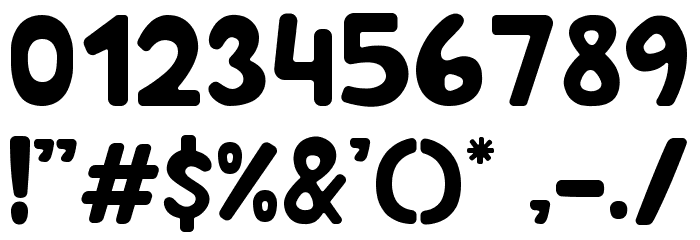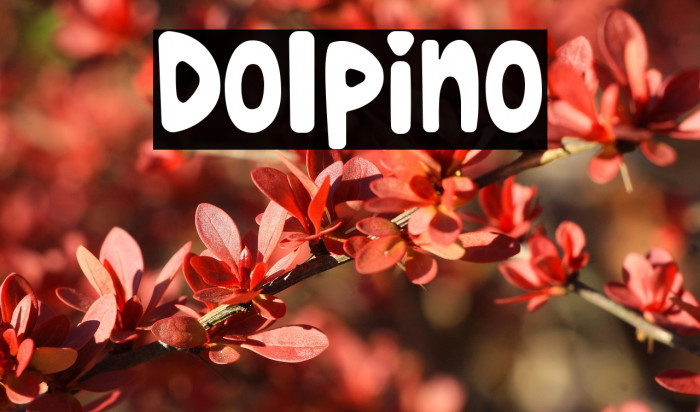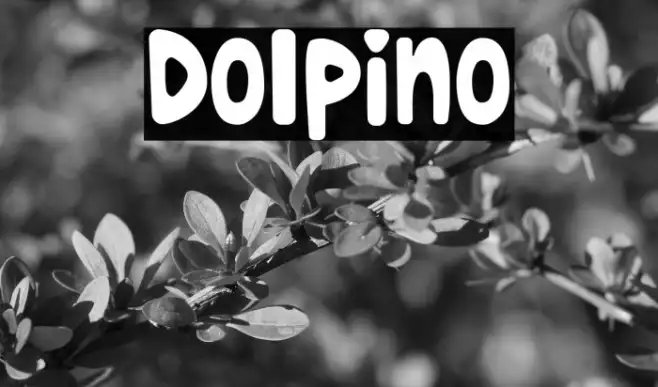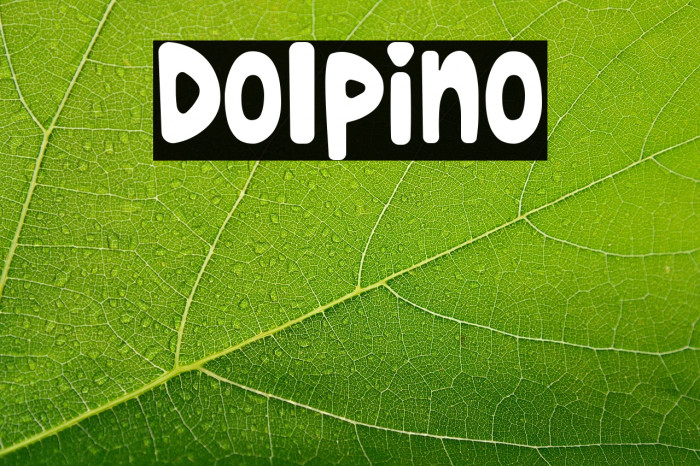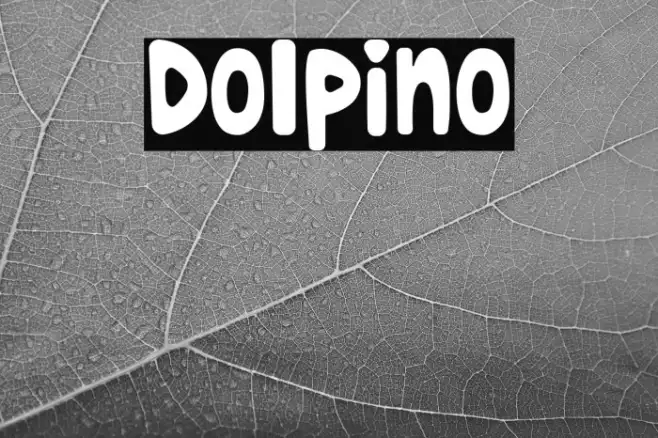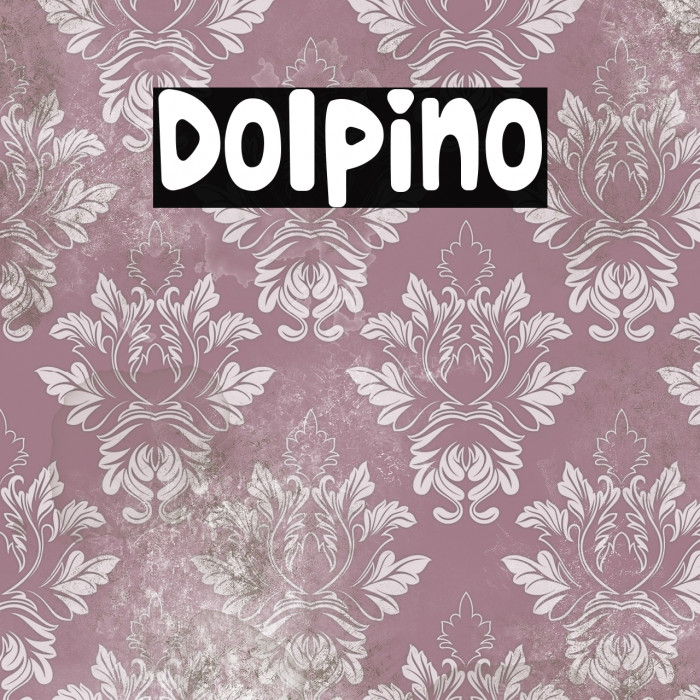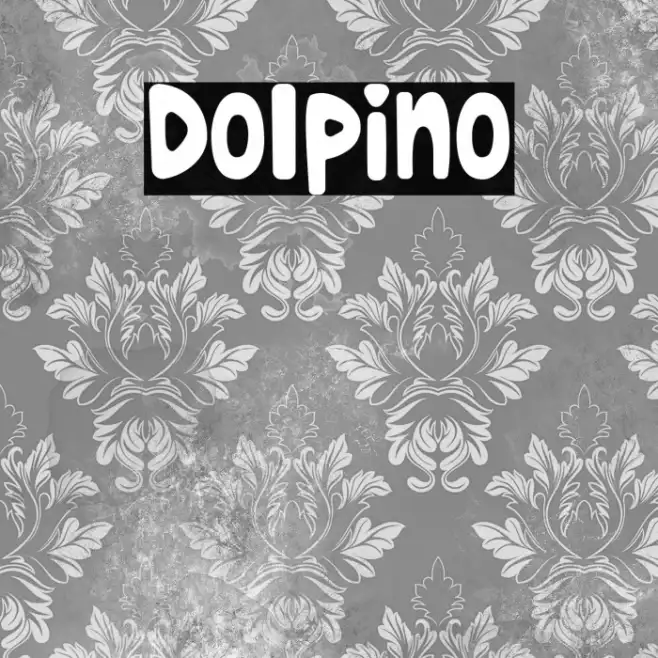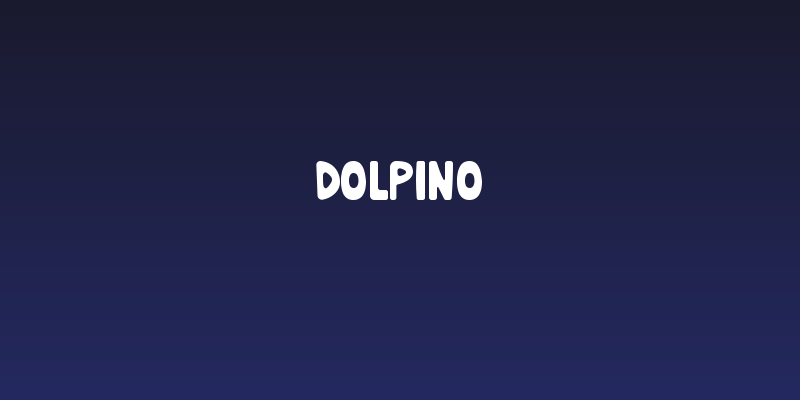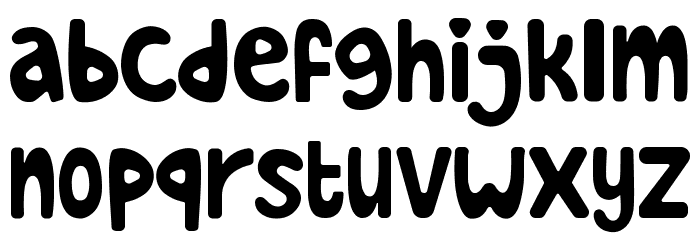
Dolpino Font
Dolpino Description
This playful and bold font features rounded, thick strokes that give it a friendly and approachable appearance. The characters are uniformly wide, with a consistent stroke weight that maintains readability while adding a touch of whimsy. The uppercase and lowercase letters are well-proportioned, with a slight slant that adds dynamism to the text. The numerals and special characters are designed to match the overall style, ensuring a cohesive look across all text. This font is ideal for projects that require a fun and engaging aesthetic, such as children's books, playful branding, or casual invitations.
| Overall Style | Playful, Fun, Casual |
| Proposed Projects | Children's books, playful branding, casual invitations, posters, and social media graphics. |